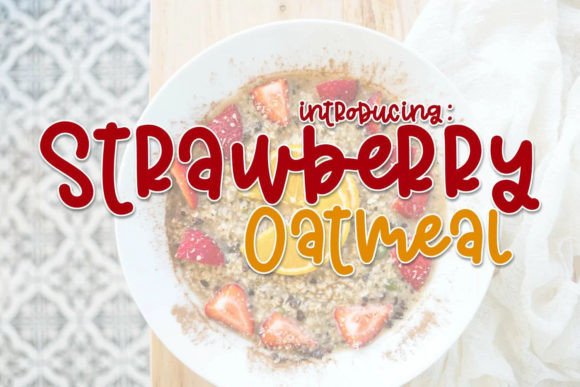
Introducing Strawberry Oatmeal, a handwritten font that's sure to add a dash of charm and personality to your creative projects! This beautiful script font boasts a thick line, perfect for making a statement on cutting machines. Let Strawberry Oatmeal take your designs to the next level with its unique "run together" letter effect, giving your projects an authentic handwritten feel. Unleash your creativity and see the magic unfold as Strawberry Oatmeal transforms your words into works of art. Download Strawberry Oatmeal today and elevate your designs to new heights!
Unleash the enchanting Strawberry Oatmeal font, a masterpiece crafted by NicholeAndrew, and embark on a creative journey like no other. This extraordinary script font is meticulously designed with a thick line, ready to make a bold impact on your cutting machine projects. Strawberry Oatmeal's captivating "run together" letter effect will add a touch of whimsical charm to your designs, evoking the essence of handwritten notes. Dive into a world of creativity and let Strawberry Oatmeal inspire you to create stunning projects that will leave a lasting impression.
Immerse yourself in the world of Strawberry Oatmeal, the ultimate font for English writing. Its elegant curves and playful style make it the perfect choice for adding a personal touch to your projects. Whether you're designing invitations, cards, or creating personalized décor, Strawberry Oatmeal will elevate your words and capture the essence of your message. Experience the joy of seamless writing with Strawberry Oatmeal, where each letter flows effortlessly into the next, creating a cohesive and mesmerizing visual experience.
With Strawberry Oatmeal, the possibilities are endless. Let your imagination soar and explore the limitless creative avenues this font has to offer. From whimsical designs to heartfelt expressions, Strawberry Oatmeal will transform your creative vision into reality. Its versatility knows no bounds, making it the perfect companion for a wide range of projects. Embrace the beauty of Strawberry Oatmeal and unlock a world of creative possibilities.